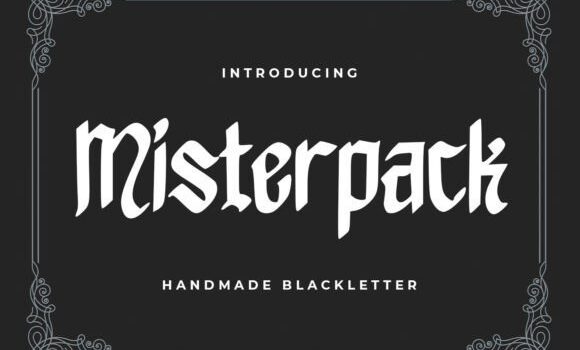
Misterpack Font – Free Download Introduction to Misterpack Font Misterpack is a bold and thick lettered blackletter font. 📸 Preview Gallery 4 images 📌 Product Name Misterpack Font 👤 Author Abodaniel 📂 Category Explore ⬇️ Download Misterpack Font FREE Free